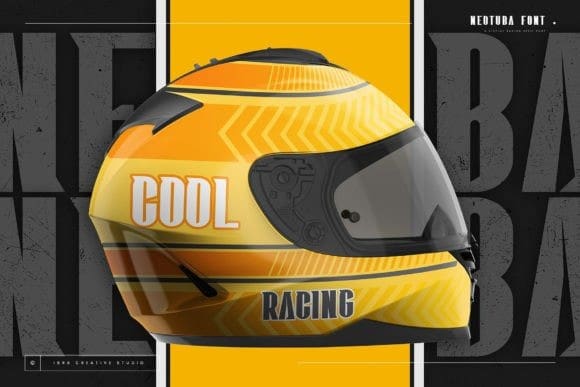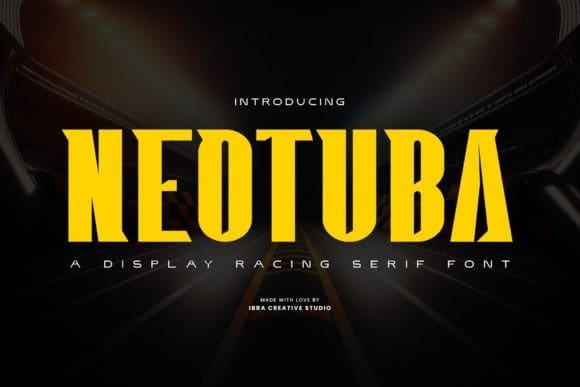
Neotuba Font
Neotuba Font, a captivating display racing serif font, seamlessly marries classic elegance with a contemporary edge. Its sleek, elongated letterforms convey a sense of speed and dynamism, making it an ideal choice for racing-themed designs or any project that demands a touch of velocity. The font exudes a refined sophistication through its precisely crafted serifs and balanced letter proportions, ensuring readability even at high speeds.